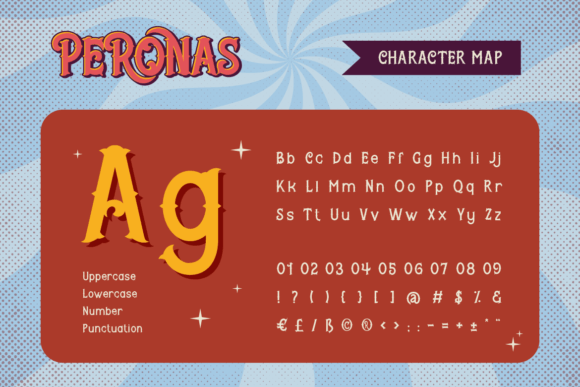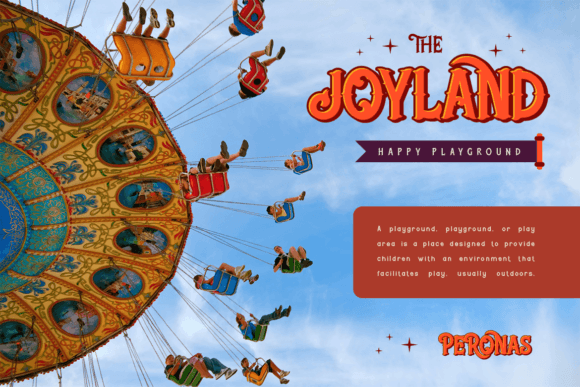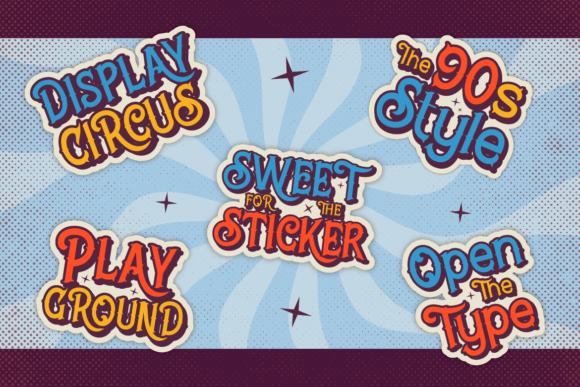
Introduction to Peronas Font
Peronas is a cool display font inspired by American circus and carnival typography.
This typeface would be great for logos, headlines, social media posts, posters, flyers, and more .
Key Features of Peronas Font
Why Choose Peronas Font?